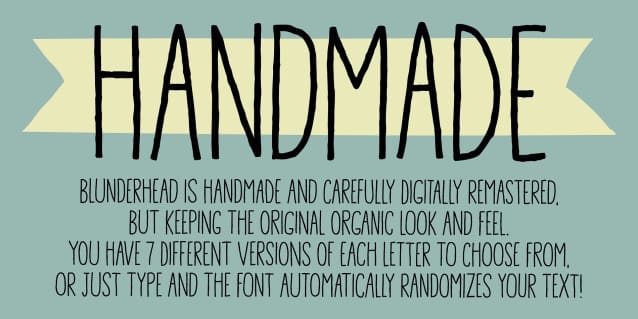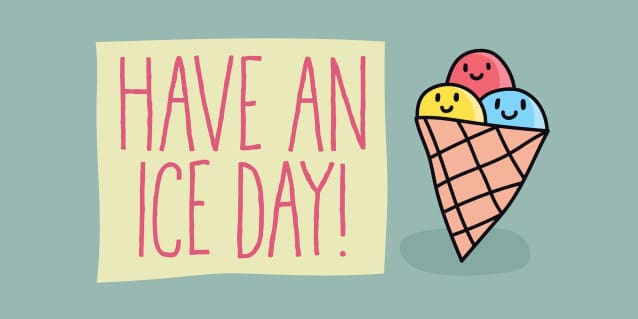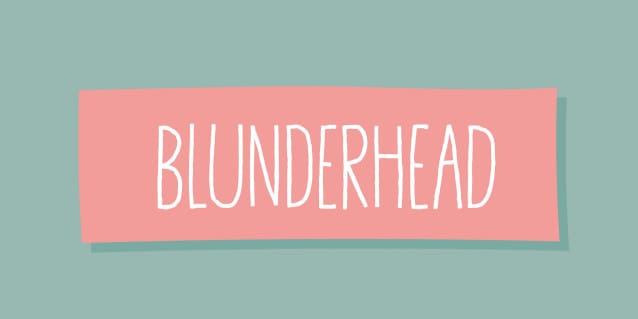
Blunderhead Font
Blunderhead Font is handmade and then carefully digitally remastered, however the original organic look and feel is kept. Furthermore I have made 7 different versions of each letter from which you can pick your favourites, or just type ahead and let the font randomly choose – making your text look even more organic and lively!